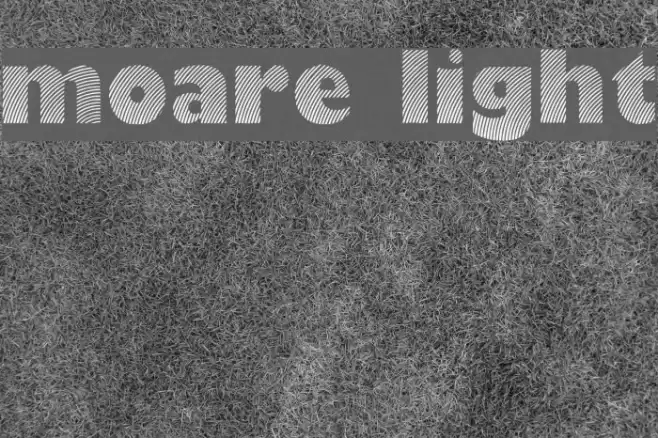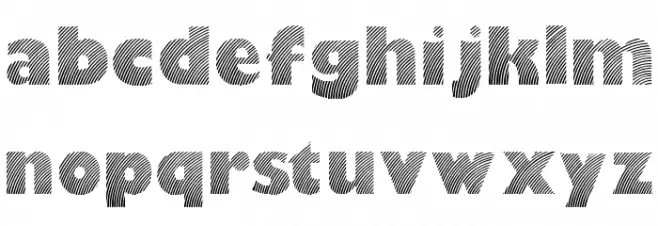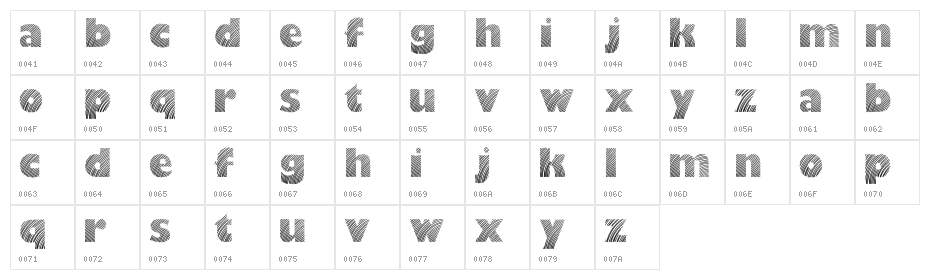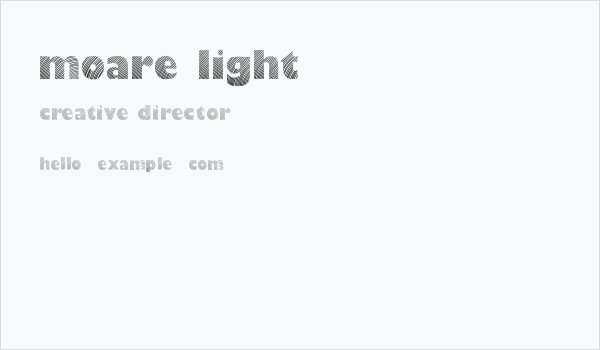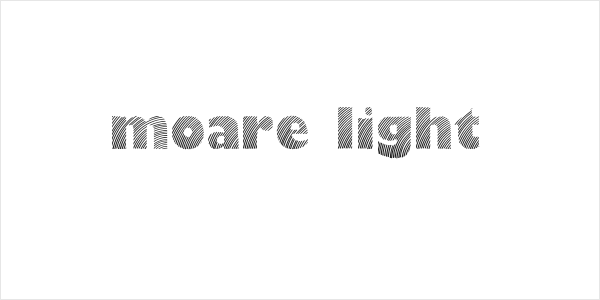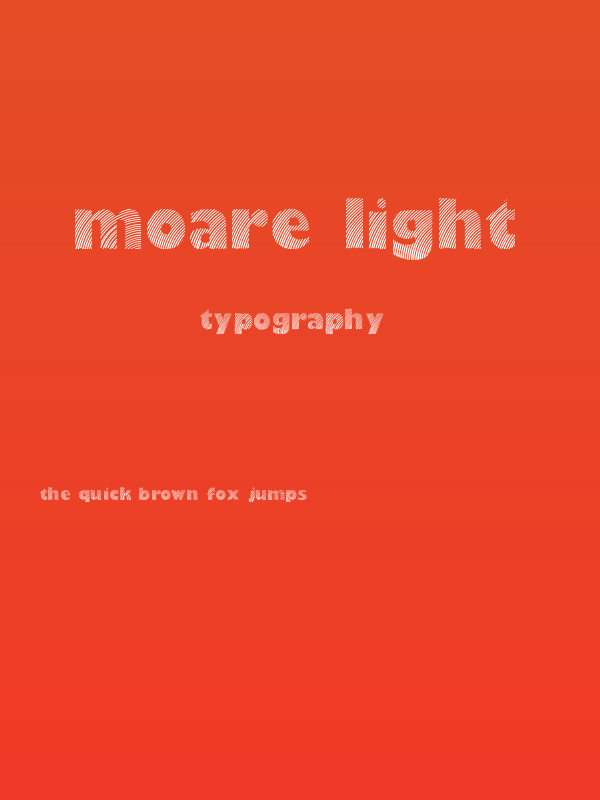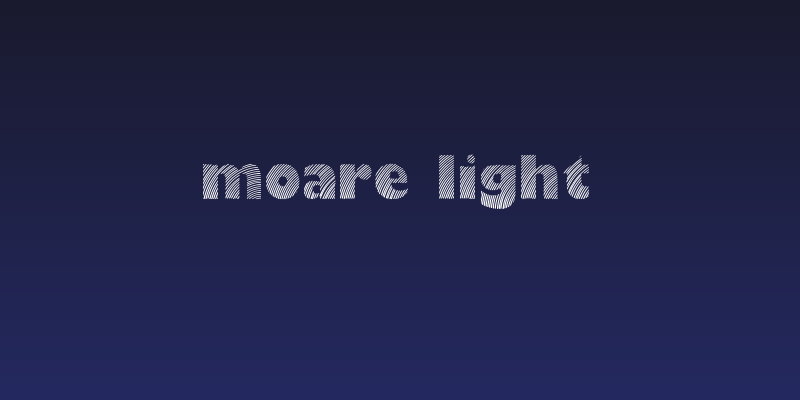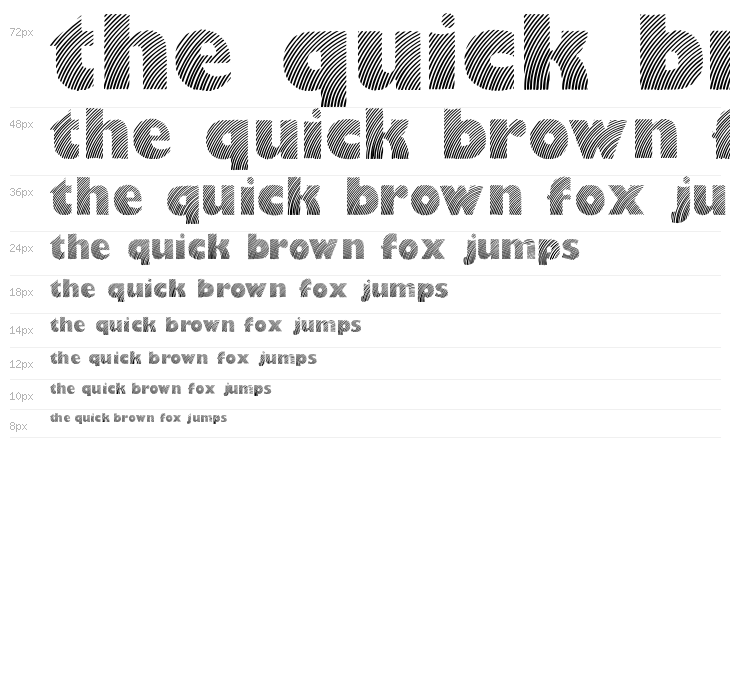
Moare Light Font
Moare Light Description
This font features a unique design with diagonal lines creating a textured, striped effect across each character. The letters are bold and have a modern, artistic flair, making them stand out with a visually striking appearance. The consistent pattern of lines gives the font a sense of movement and dynamism, while maintaining readability. The style is playful yet sophisticated, suitable for creative projects that require a distinctive look. The font's design is consistent across both uppercase and lowercase letters, providing a cohesive aesthetic.
A bold, textured font with diagonal stripes creating a dynamic, modern look from Uncategorized fonts.
- Proposed Projects: Ideal for branding, posters, and artistic projects where a unique, eye-catching typeface is desired.